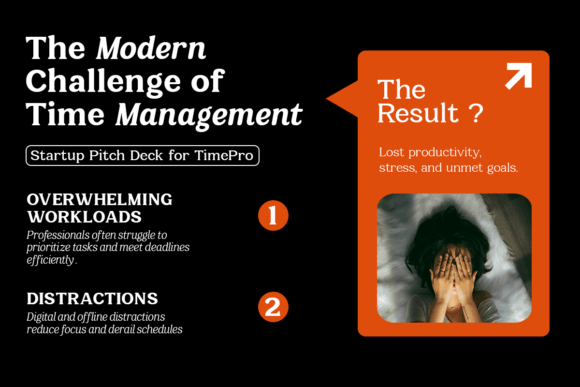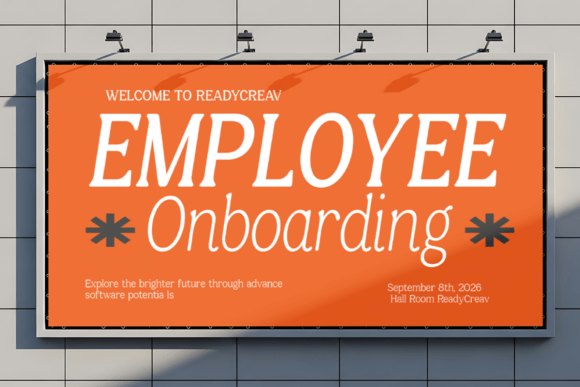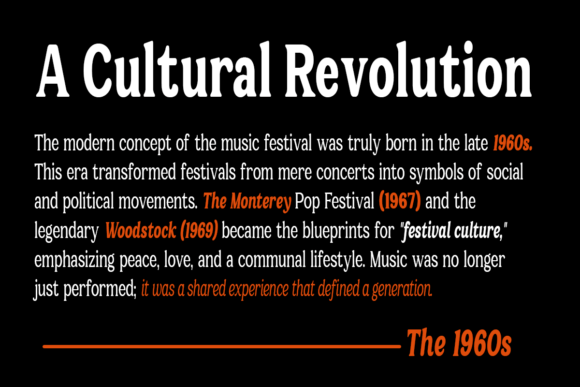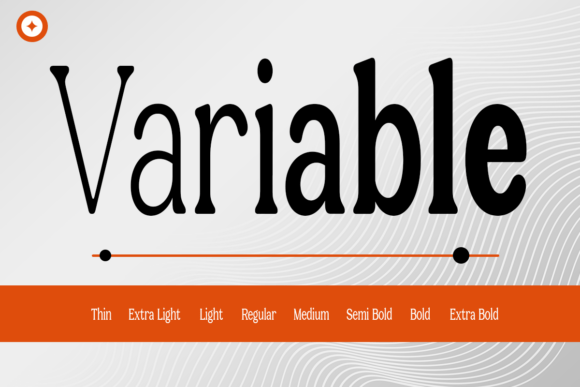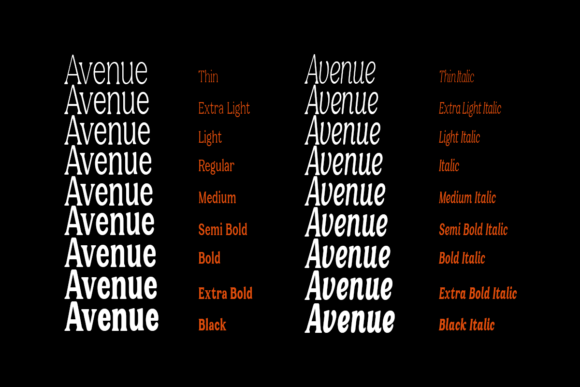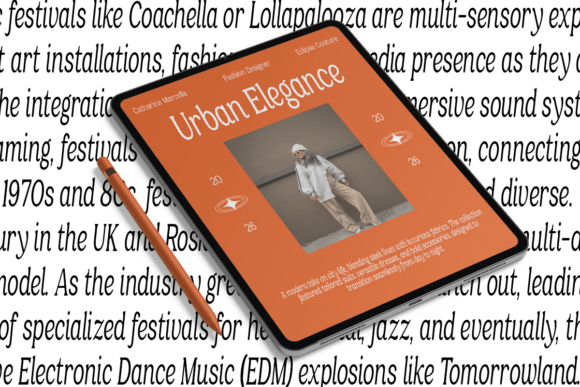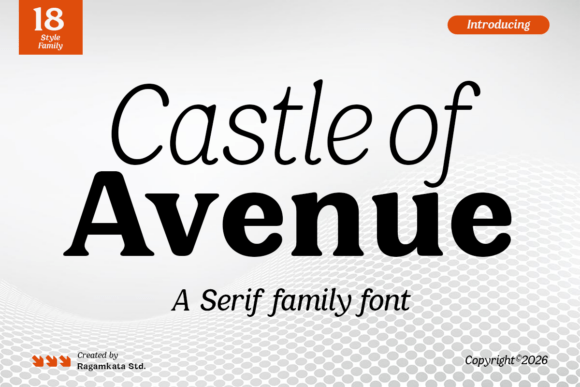
Introducing Castle of Avenue: The Ultimate Serif Font for Elegant Design
In the world of typography, a well-crafted font can elevate a design from ordinary to extraordinary. Meet Castle of Avenue, a refined serif family font that embodies elegance, versatility, and timeless sophistication. With 18 style variations, this typeface offers a complete typographic system that balances classic serif beauty with contemporary flexibility, making it an essential tool for designers seeking to create stunning visual identities.
A Harmonious Blend of Readability and Visual Impact
Castle of Avenue boasts graceful curves and strong letterforms that create a harmonious blend of readability and visual impact. Its serif design pays homage to traditional typography, while its contemporary flexibility ensures it remains relevant in modern design landscapes. Whether you’re crafting a premium brand identity, designing elegant publications, or creating stylish marketing visuals, Castle of Avenue delivers a polished and professional look that is sure to impress.
Unleash Your Creativity with 18 Style Variations
One of the standout features of Castle of Avenue is its impressive range of 18 style variations. From delicate italic styles to bold and powerful weights, this font family allows designers to build cohesive and dynamic typography systems with ease. This versatility makes it perfect for a wide range of creative applications, including:
- Branding: Create a lasting impression with a custom logo or wordmark that exudes sophistication and elegance.
- Editorial Design: Elevate your publications with a refined and readable font that complements your content.
- Luxury Packaging: Add a touch of high-end style to your packaging with a font that screams luxury.
- Fashion Magazines: Make a statement with a font that embodies the glamour and sophistication of the fashion world.
- Logos: Create a custom logo that stands out from the crowd with a unique and memorable design.
- High-End Visual Identities: Develop a visual identity that reflects your brand’s values and personality with a font that is both elegant and versatile.
Crafting a Cohesive Brand Identity with Castle of Avenue
Castle of Avenue’s range of styles allows designers to create a cohesive brand identity that adapts effortlessly across various creative needs. By selecting a combination of styles that work in harmony, designers can develop a typography system that is both visually appealing and functional. This approach not only streamlines the design process but also ensures consistency across different platforms and applications.
Why Designers Love Castle of Avenue
So, what makes Castle of Avenue an essential font family for designers? Here are just a few reasons:
- Timeless Sophistication: Castle of Avenue’s classic serif design ensures it remains relevant for years to come, making it a valuable addition to any design library.
- Versatility: With 18 style variations, designers can adapt Castle of Avenue to suit a wide range of creative applications.
- Elegance: Castle of Avenue’s refined design makes it perfect for luxury brands, high-end publications, and sophisticated marketing visuals.
- Readability: The font’s strong letterforms and graceful curves ensure it remains readable even at small sizes.
In conclusion, Castle of Avenue is a refined serif family font that offers a unique combination of elegance, versatility, and timeless sophistication. With its 18 style variations, this typeface provides a complete typographic system that balances classic serif beauty with contemporary flexibility. Whether you’re a designer, craftsperson, or simply someone who appreciates beautiful typography, Castle of Avenue is an essential font family to have in your toolkit. So why wait? Discover the power of Castle of Avenue and elevate your designs to new heights of sophistication and elegance.